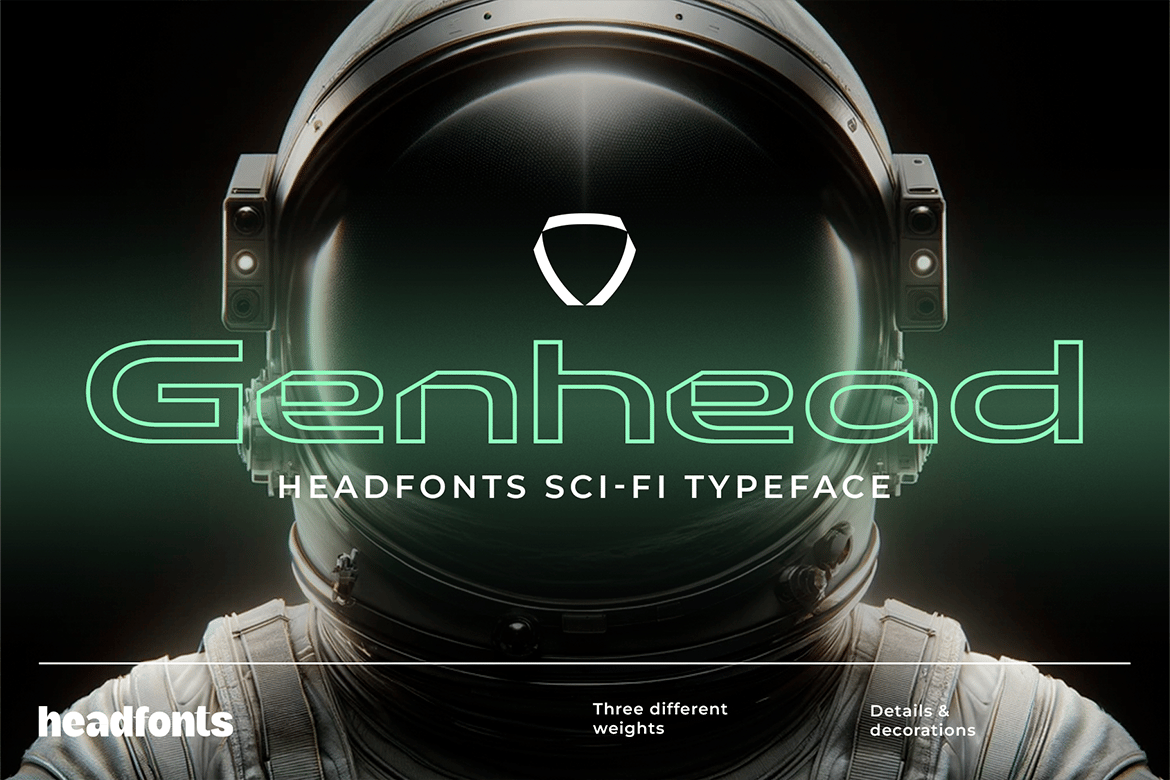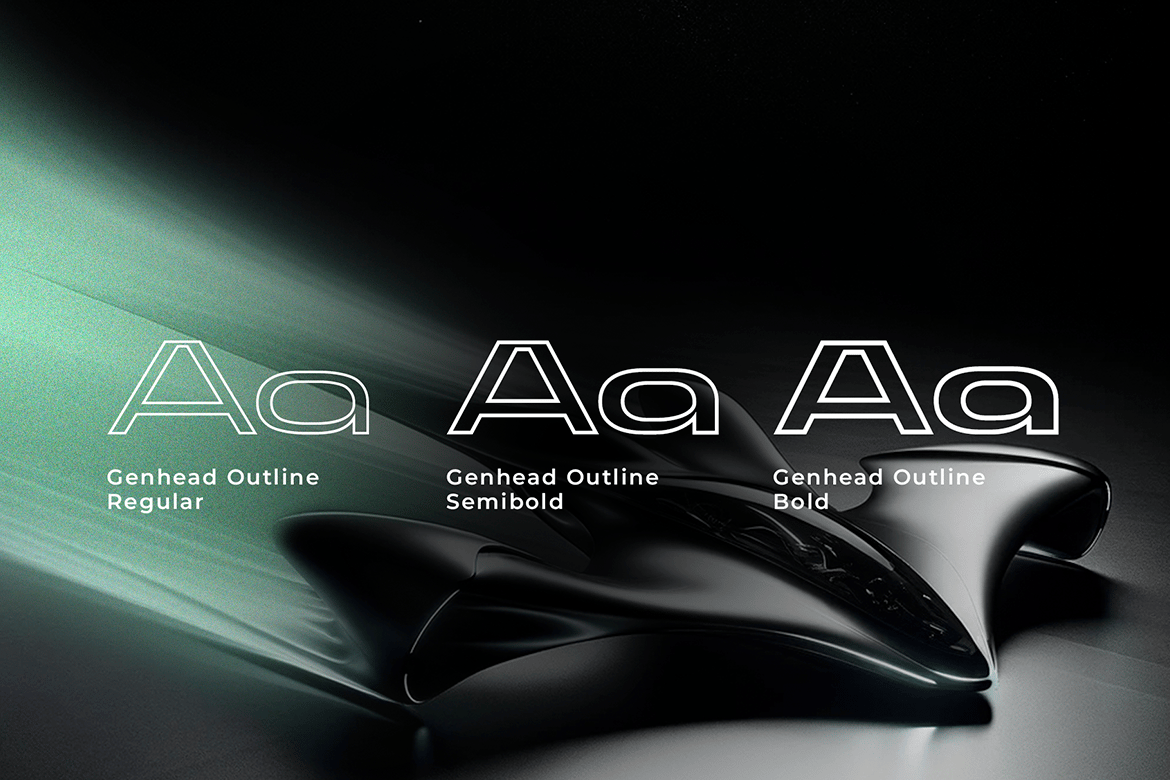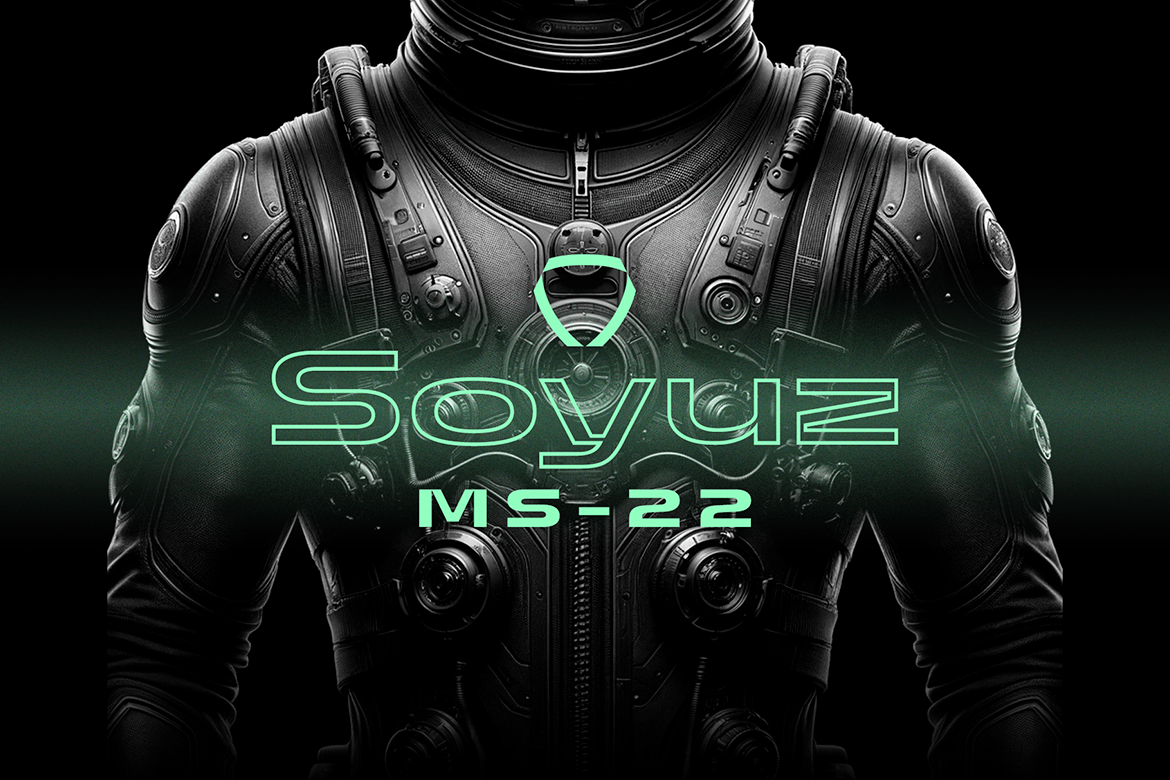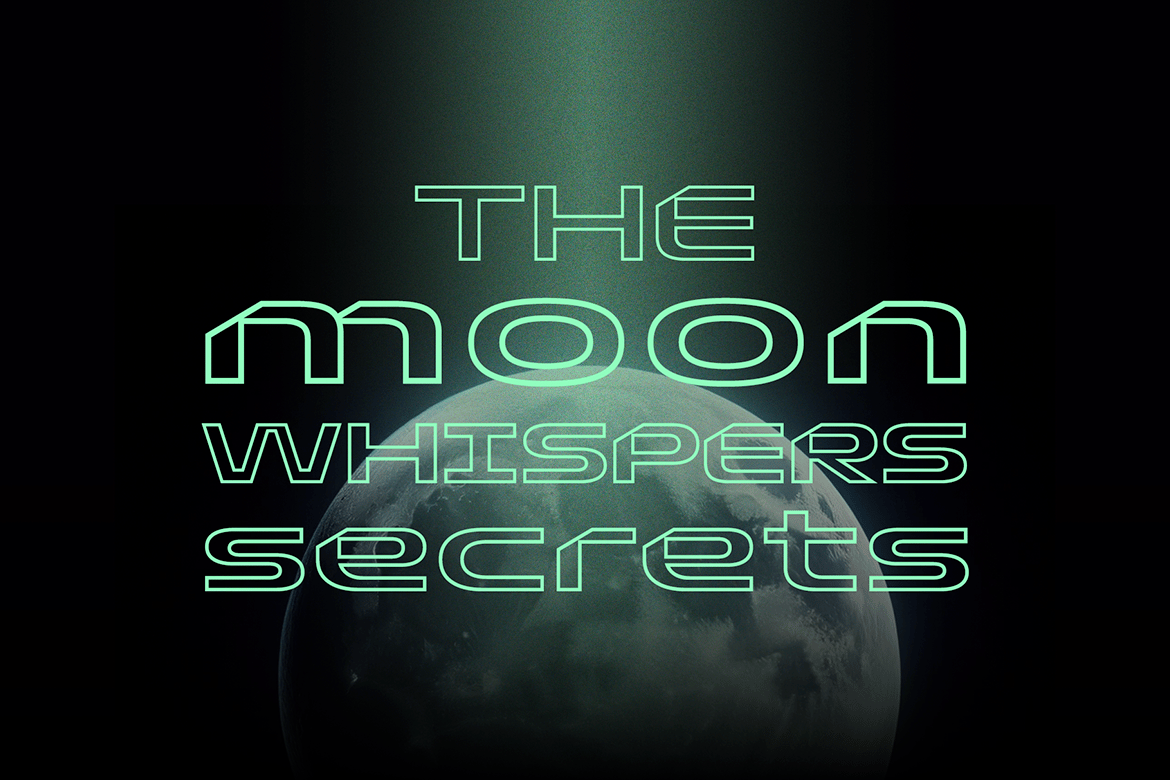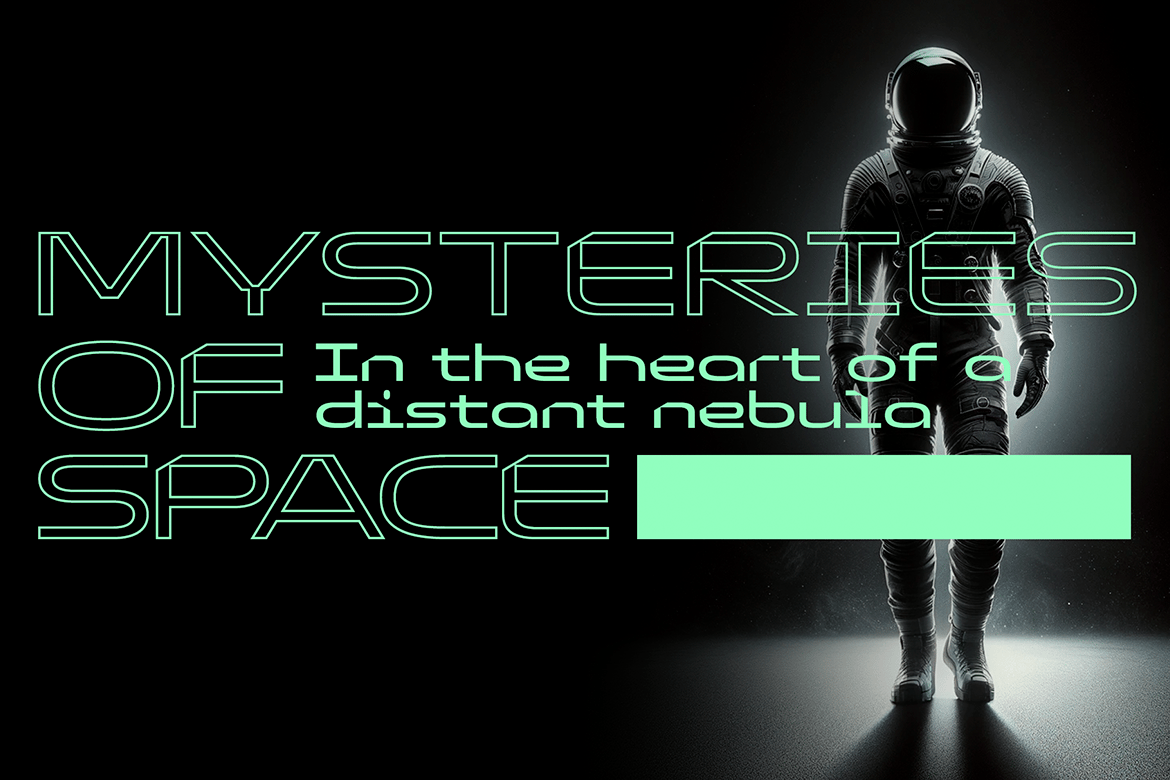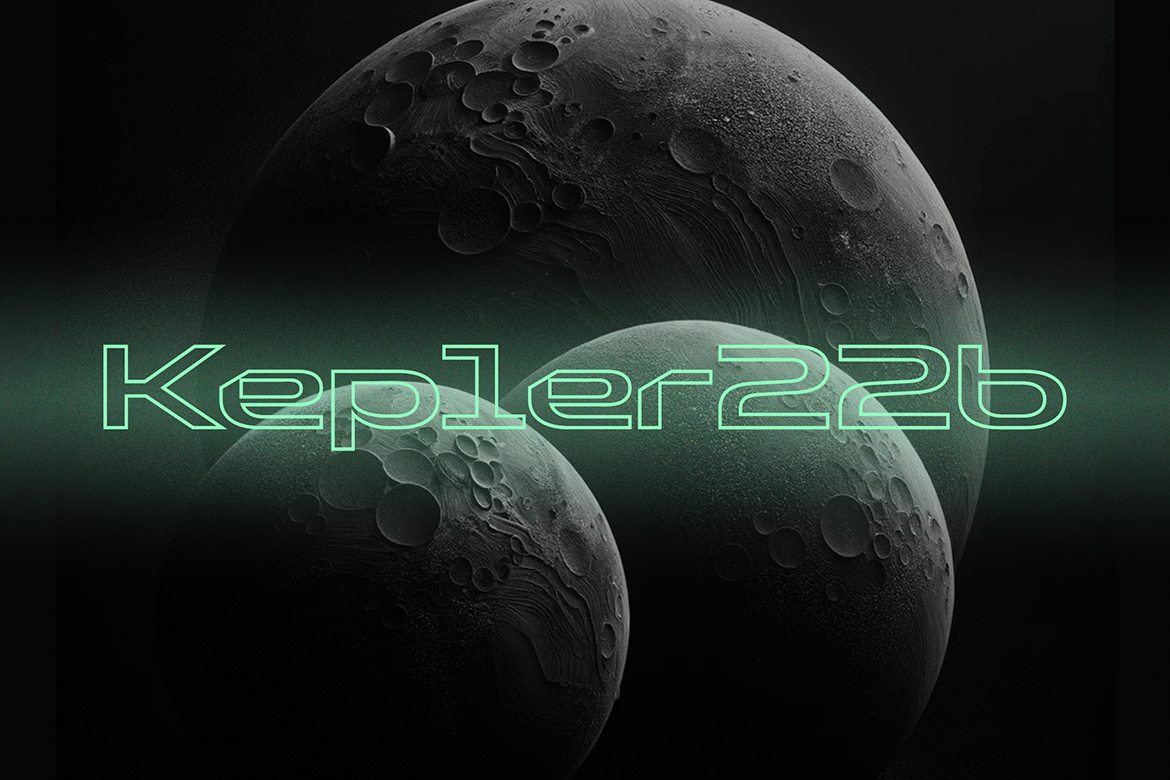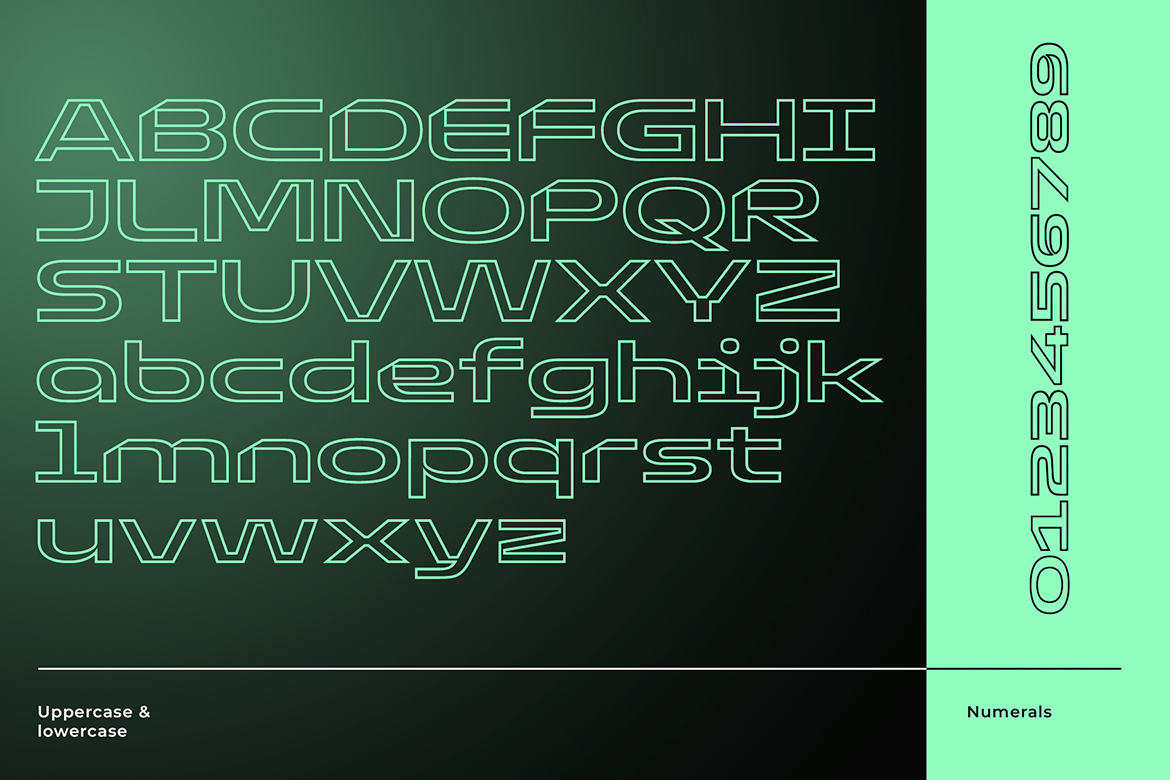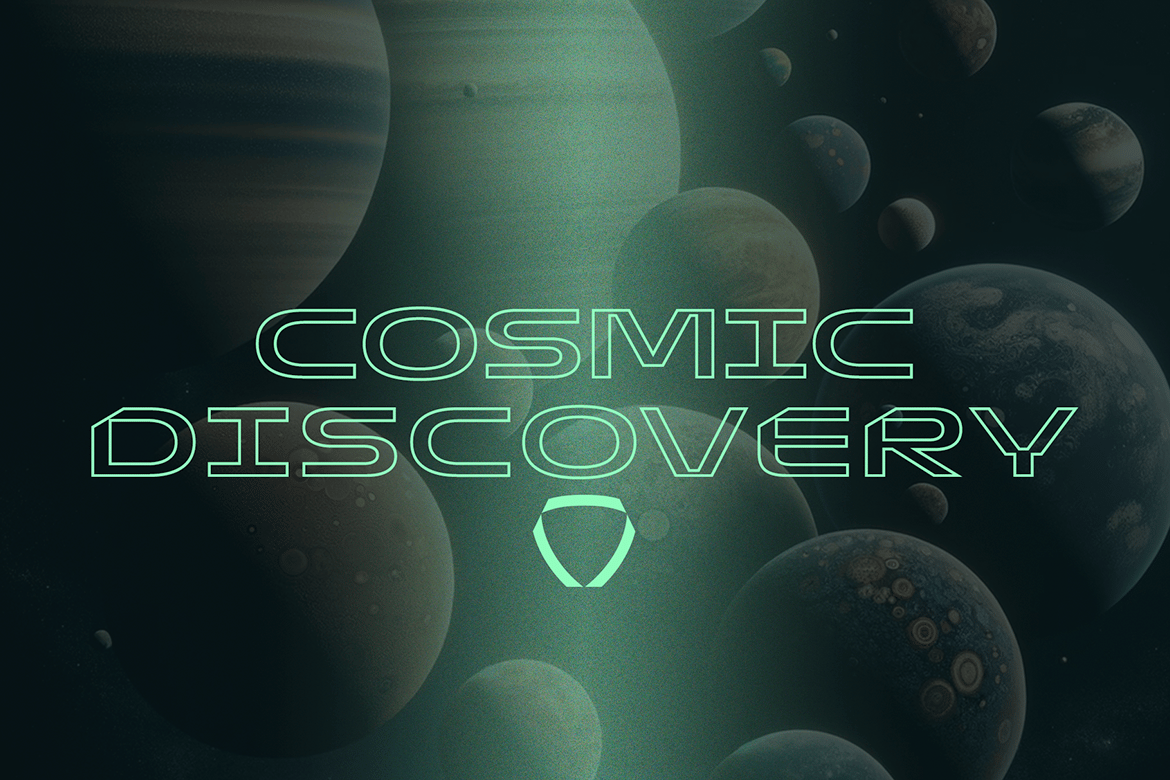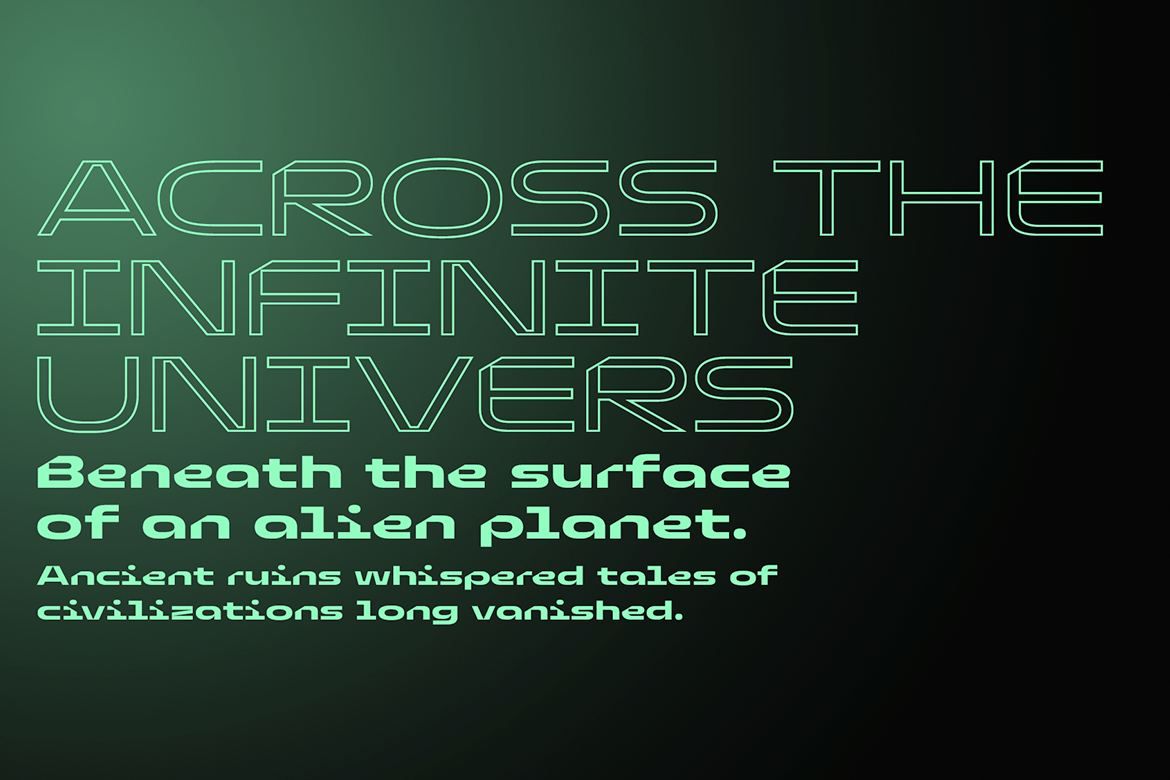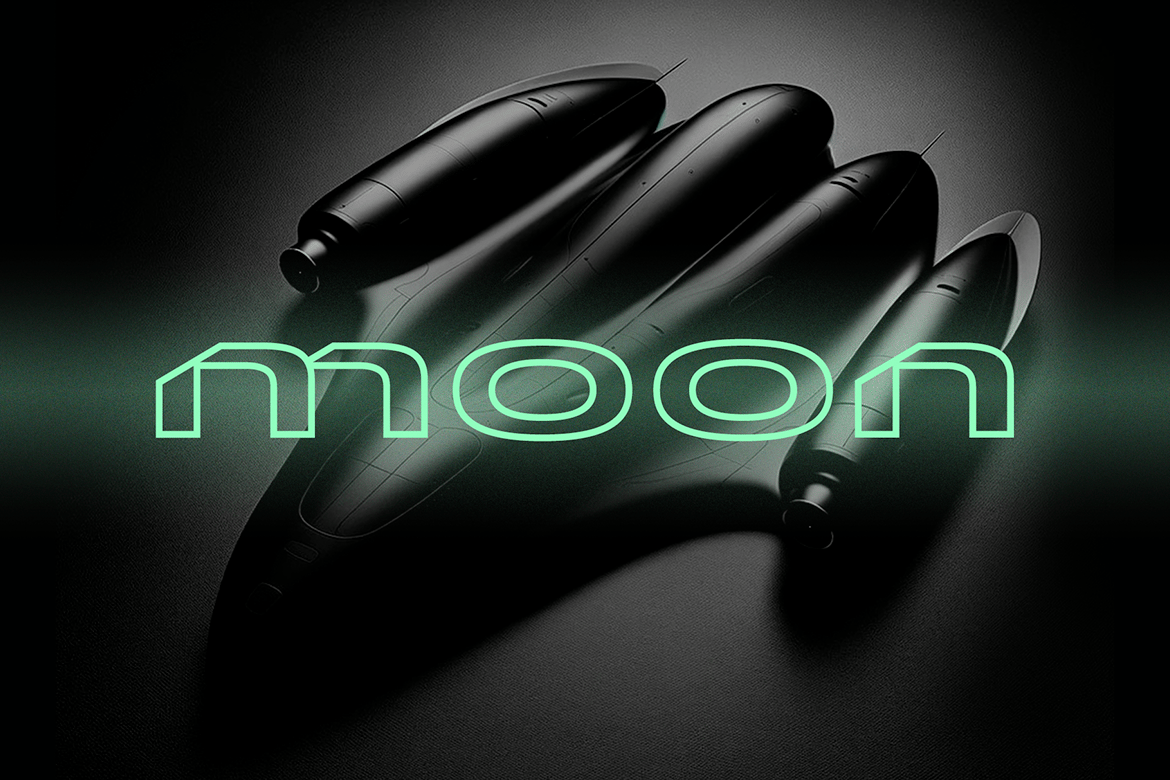
Genhead Outline Futuristic Font
Ready to launch your designs into the stratosphere? Say hello to Genhead Outline, your new go-to typeface for all things futuristic and high-tech . Whether you’re crafting interstellar logos or typing up your next sci-fi screenplay, Genhead Outline has your back.